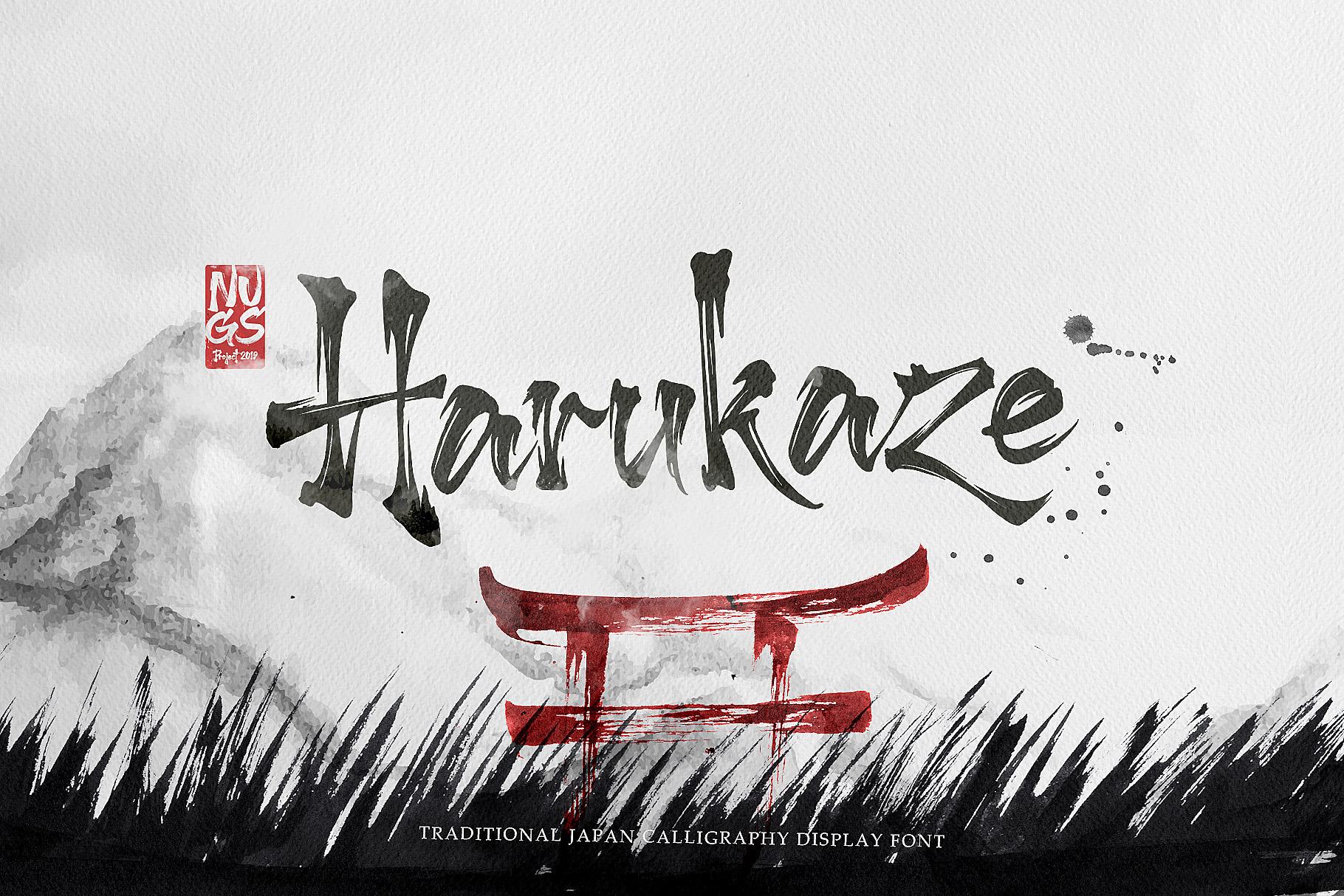
Harukaze Brush Font
Inspired by traditional Japanese calligraphy, Harukaze is a brush display typeface with a bold and powerful feel.
PROS: This has to be one of the only fonts that exists that is truly of a Japanese Brush style; its is beautiful. Works perfect for my asian art projects. A+ CONS: I want not happy that I paid for a font that was incomplete in regard to it didn't have a lot of standard glyphs id expect to see in any font. 1234567890 ~`´!@#$%^&*() - — _=+[]{}\|;: '" ‘’ “” ,.<>/?… • ™ ® © ° Out of these above : it was missing these basic glyphs Bullet (2022) Degree (00B0) Copyright (00A9) Registered (00AE) Ellipsis (2026) Endash (2013) Quote Left (2018) Quote Right (2019) Quote Block Left (201C) Quote Block Right (201D) I would love and update to the font I think anyone deserves that much. but I will end up just making the missing glyphs my self since I can expect the artist to do it.